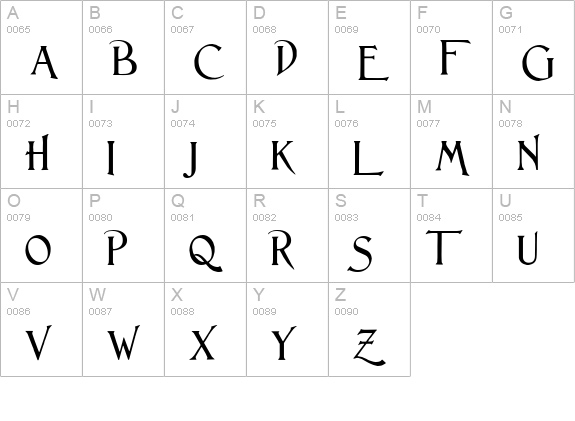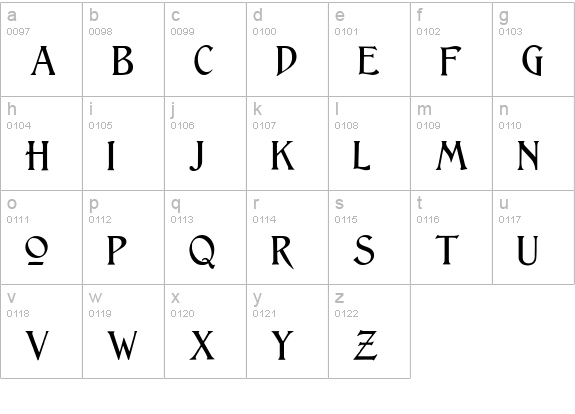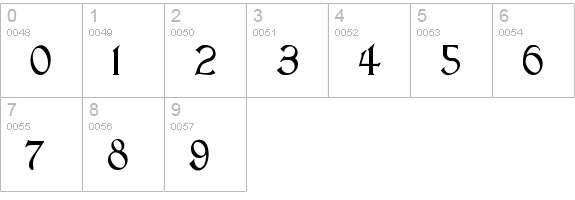
Lightfoot font is a modern and elegant typeface that exudes sophistication and style. With its sleek lines and graceful curves, Lightfoot is perfect for adding a touch of class to any design project. This versatile font is ideal for use in branding, advertising, packaging, and more. The best part? Lightfoot font is available for free download at FontsMarket.com. This means you can easily access this stunning font and use it in your projects without any cost. Whether you're a professional designer or just someone looking to add a touch of elegance to your creations, Lightfoot font is the perfect choice. Download it today and elevate your designs with this beautiful typeface.